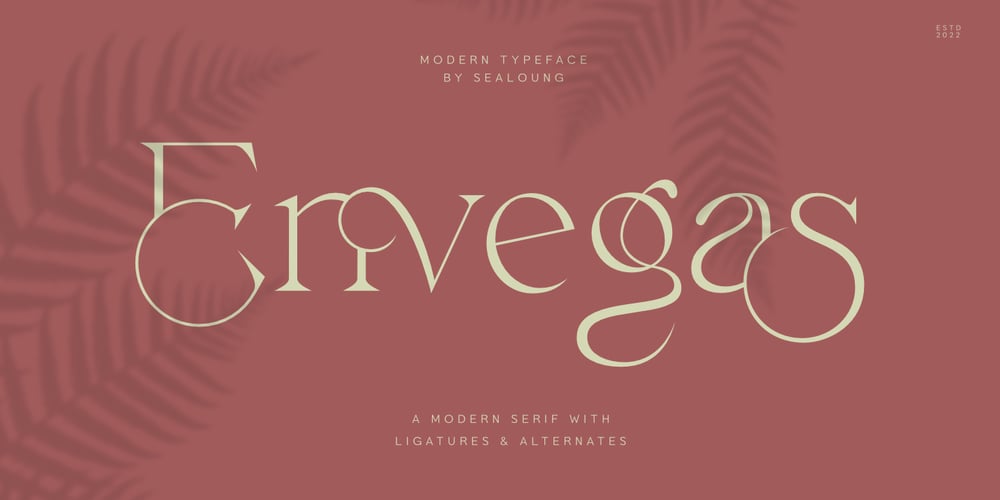
Envegas
Envegas font
Envegas Font Family was designed by Saiful Anwar and published by Sealoung. Envegas contains 1 styles and family package options. Envegas is a Modern Ligature Serif Font. Its soft curves mixed with high contrast glyphs, give it a feminine and masculine quality. A blend of modern and old styles and equipped with unique ligatures, discretionary ligatures, and alternates. Great in layout design for quotes or body copy, best used as a display for headings, logos, branding, magazines, product packaging, and invitations.Accessible in Adobe Illustrator, Adobe Photoshop, Adobe InDesign, and even work on Microsoft Word. PUA Encoded Characters – Fully accessible without additional design software. Fonts include multilingual support.Feel free to follow, like, and share. Thanks so much for checking out my shop!If you need a custom license or have questions, please email: sayfulyusfi@gmail.com